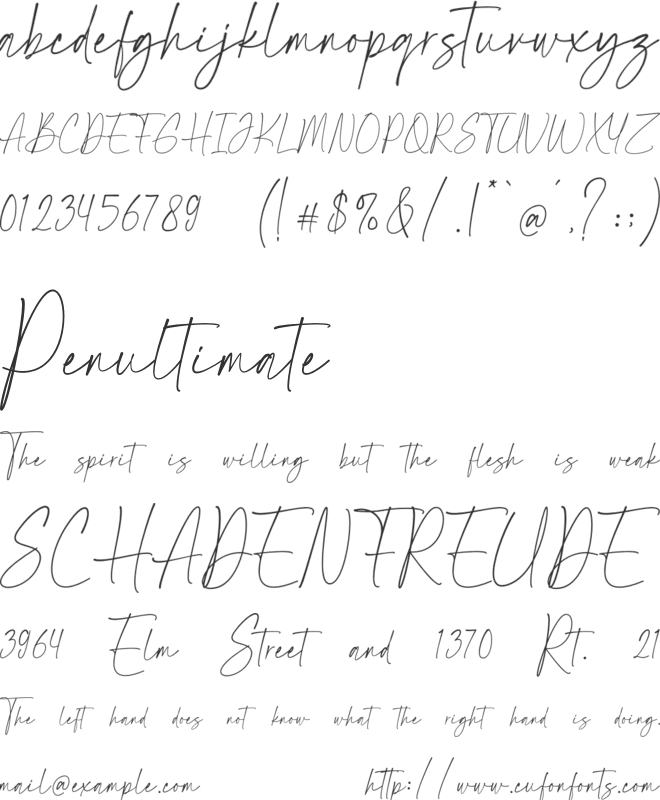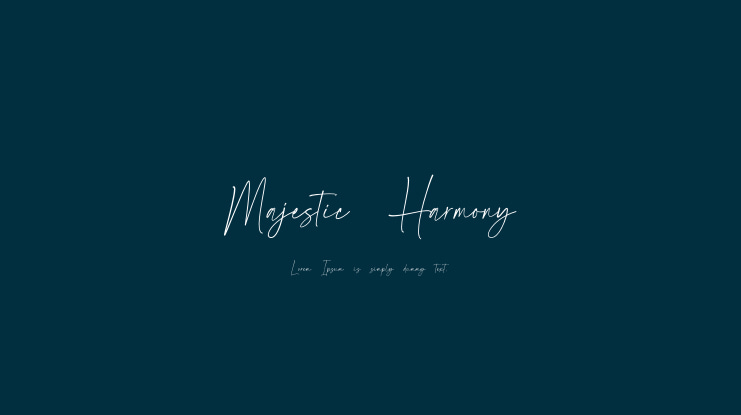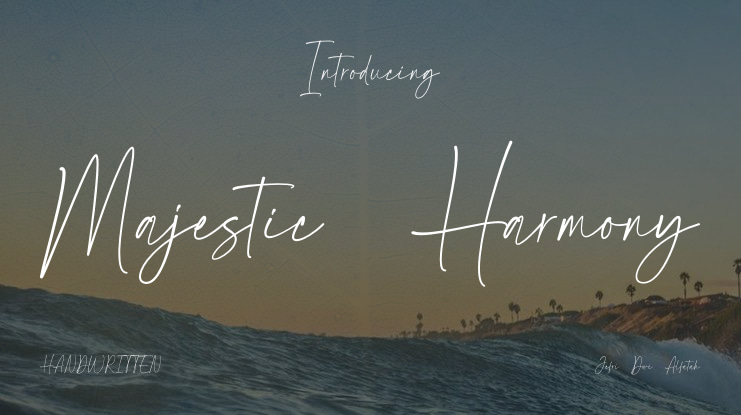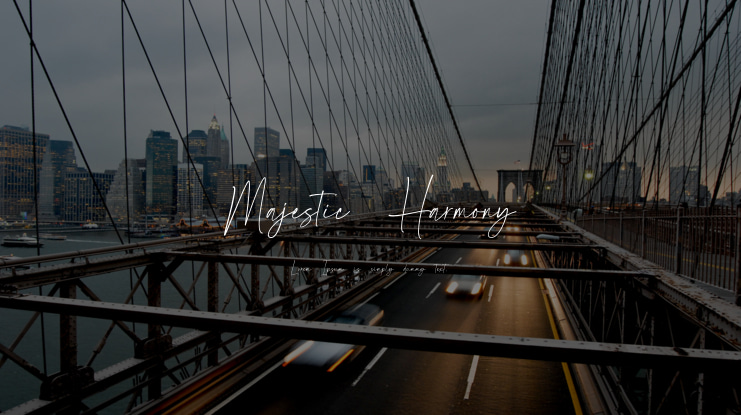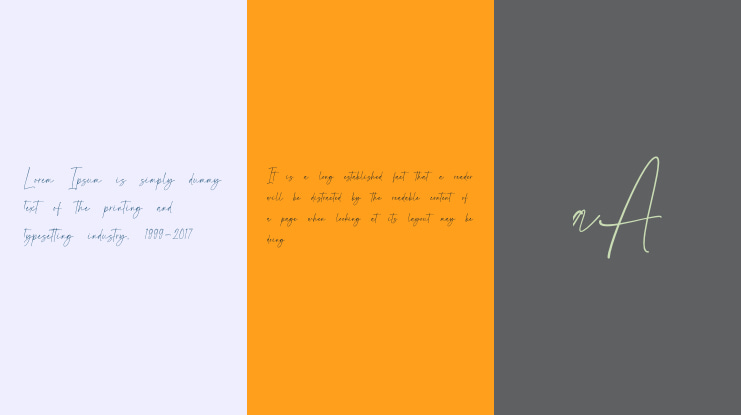
Majestic Harmony Font
Majestic Harmony is an exquisitely designed handwritten signature font that radiates elegance and sophistication. With its graceful flow and refined details, it is ideal for imparting a touch of luxury to branding, invitations, and personal signatures.